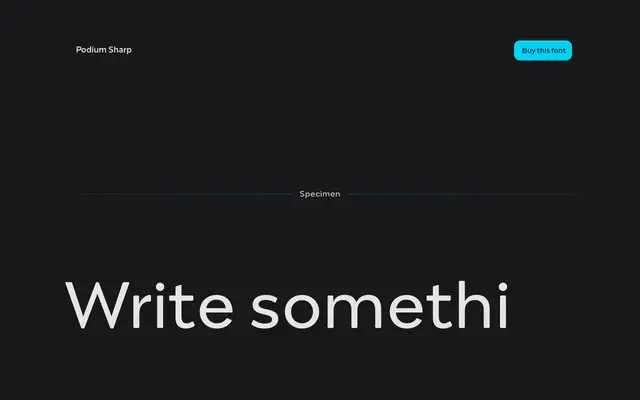
Podium Sharp
Capitalics · Mateusz Machalski · 2012
A 234-style geometric display family by Mateusz Machalski, rooted in Polish woodtype specimens and organised by a Frutiger-inspired numeric grid of widths and weights.
Built as an extended rebuild of Machalski's 2012 DUDU typeface, Podium Sharp spans nine widths from ultra-compressed to ultra-expanded, each available in 13 weights from hairline to heavy, all with matching italics. The design draws on historical Polish modular and geometric woodtypes including Rex, Blok and Bacarat. Styles are named using a two-digit system where the first digit denotes width and the second denotes weight, making navigation across the 234-style family straightforward for posters, visual identities and large-scale display work.
A modular geometric display typeface derived from old Polish woodtype specimens, spanning ultra-compressed to ultra-expanded widths across 13 weights — firmly display in character and application.